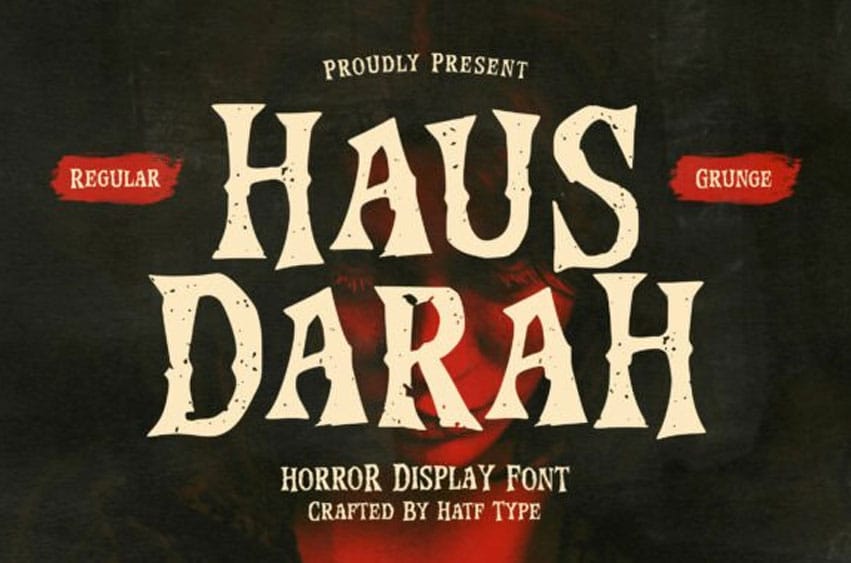
Haus Darah Font Plunge into the surreal palpitations of the night with Haus Darah, your horror-inspired font choice, where each letter has a chilling tale to convey. Handcrafted for those who seek thrills beyond words, this font assists in transforming the mundane into spine-tingling fear. Drawing inspiration from blood-touched fonts, gaping wounds, and enigmatic graffiti, each character of Haus Darah emblemizes unsettling horror that’s impossible to overlook.
Haus Darah unveils in two unique yet congruous styles. The Regular form offers a bold, unambiguous narrative, its stark clarity perfect for striking title applications on posters, book covers, or horror-branded merchandise requiring a dramatic punch without sacrificing legibility. Then there’s the Grunge version that provides a raw encounter with each character as if scarred by the distress of a foreboding world, a representation that’s gritty and haunting.
Harness the potent eeriness of Haus Darah for diverse purposes. Be it suspense-driven horror movie posters or Halloween event invites designed to ensnare, this font assures a sensation of terror that’s remarkably tantalizing and suspenseful. Inject your music album covers—especially those in the metal, gothic, or punk genres—with raw energy and potent emotion. Use it for mystical and horror-themed merchandise—from tees and stickers through to captivating digital designs. Game titles that require an aura of fear, tension, and bloodcurdling dread will come to life with Haus Darah.
Each alphabetic symbol in Haus Darah is not just a letter—it’s an eerie narrative of hushed shrieks, echoing footsteps in a dark alley, and a relentless craving for the eeriness. It breaches the boundaries of typography, serving as a portal into a realm tinged with haunting horror that leaves a searing imprint on the viewer’s psyche. In your quest for a font that goes beyond superficial fear to craft a truly bone-chilling experience, you’ll find Haus Darah a more than suitably macabre choice.